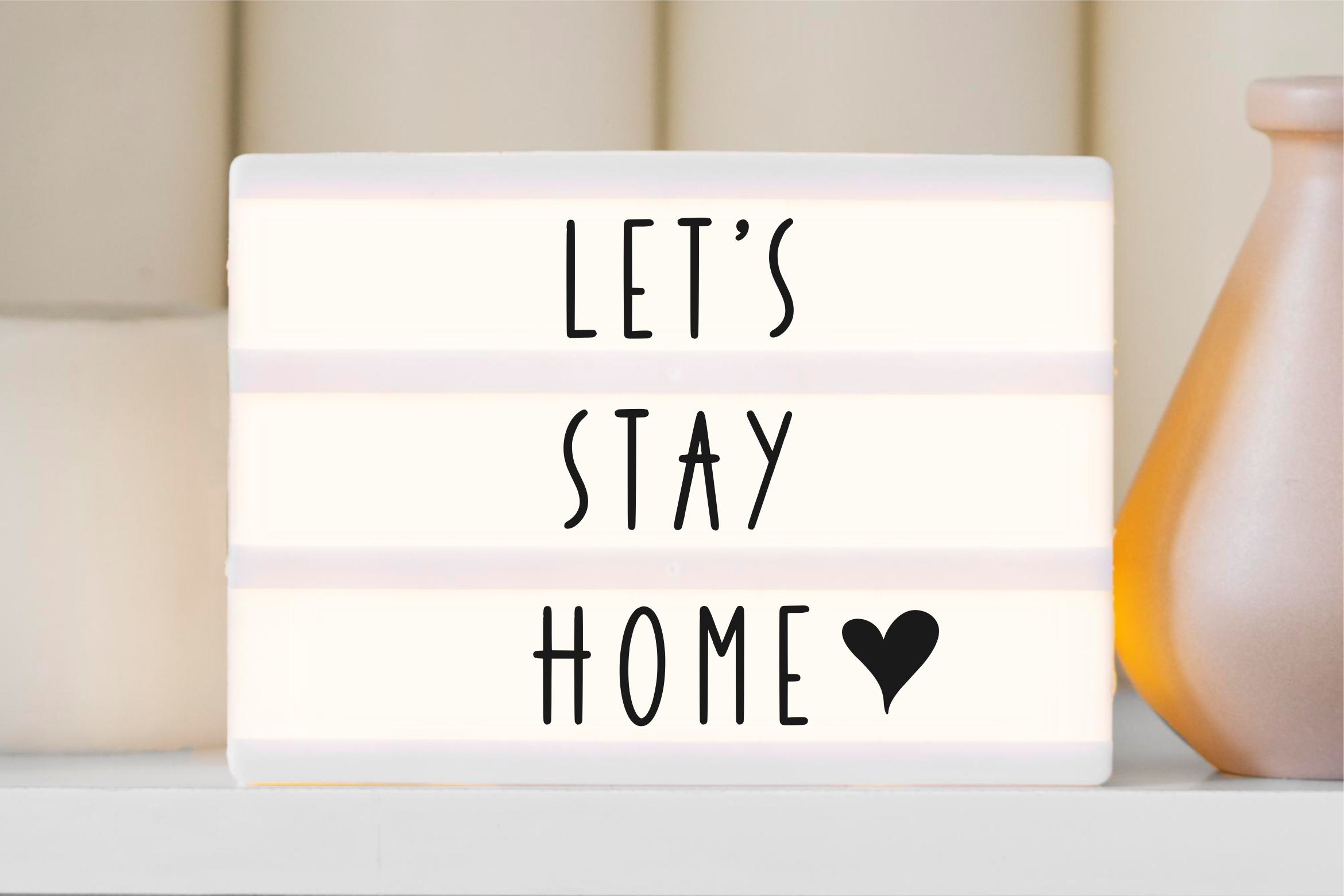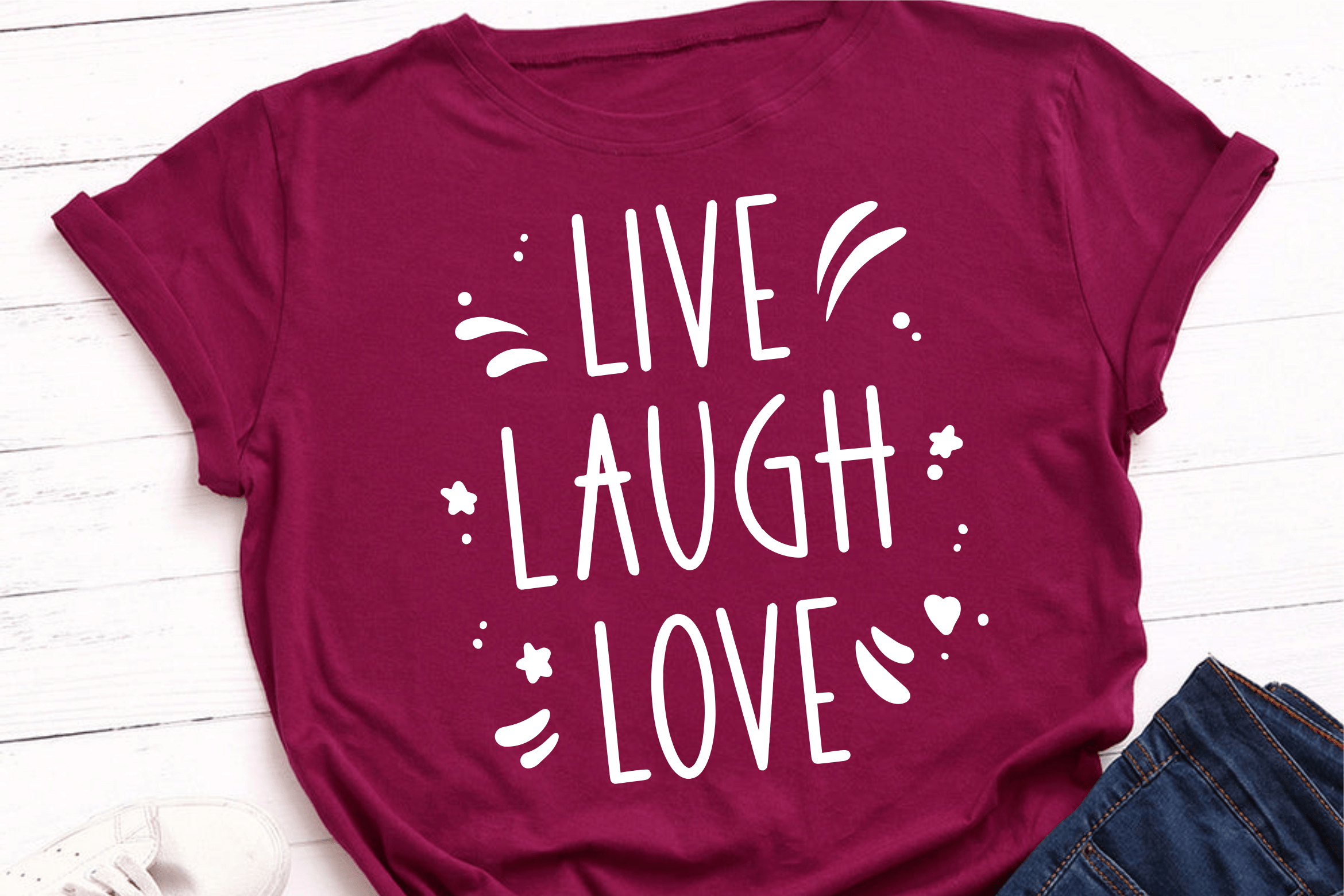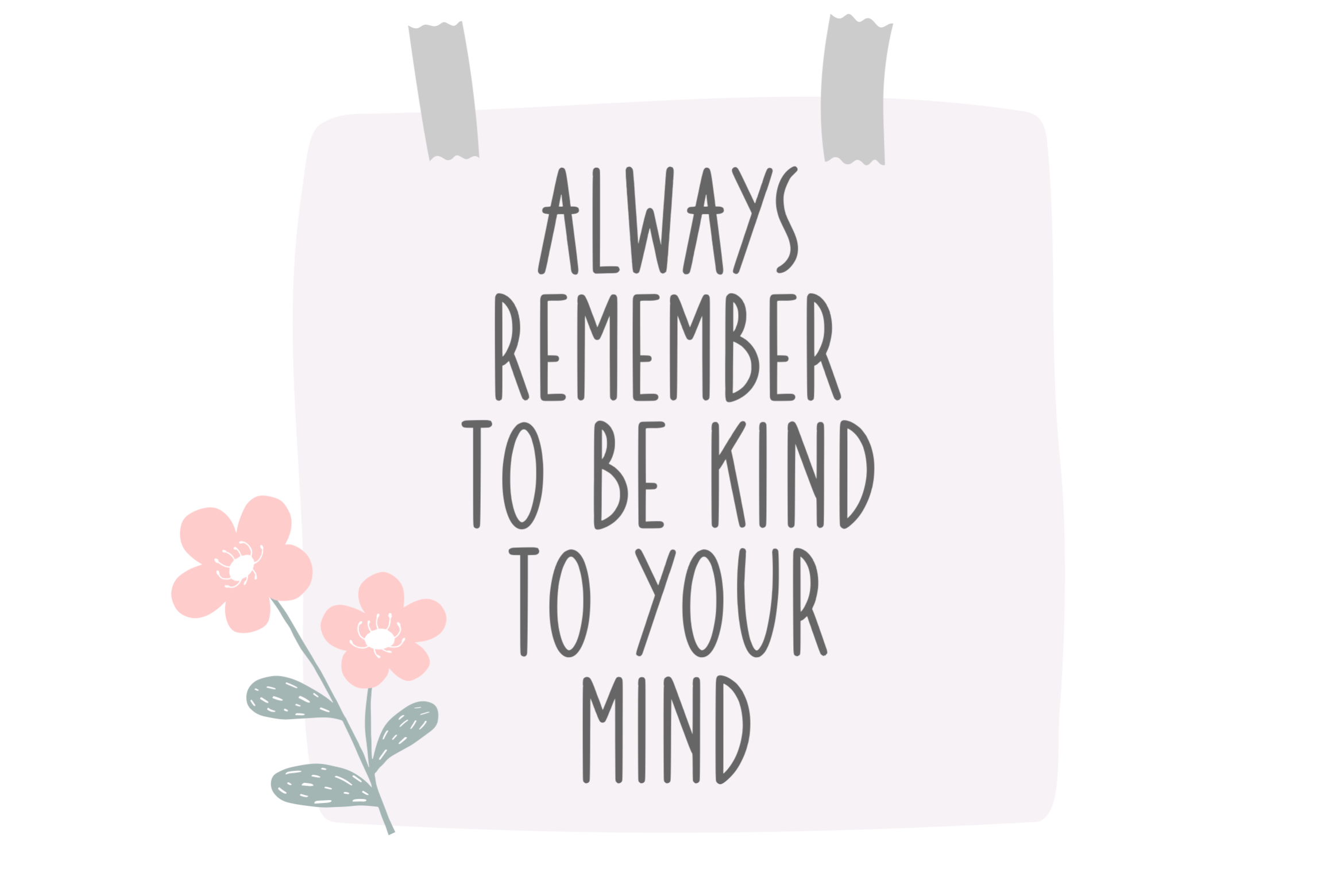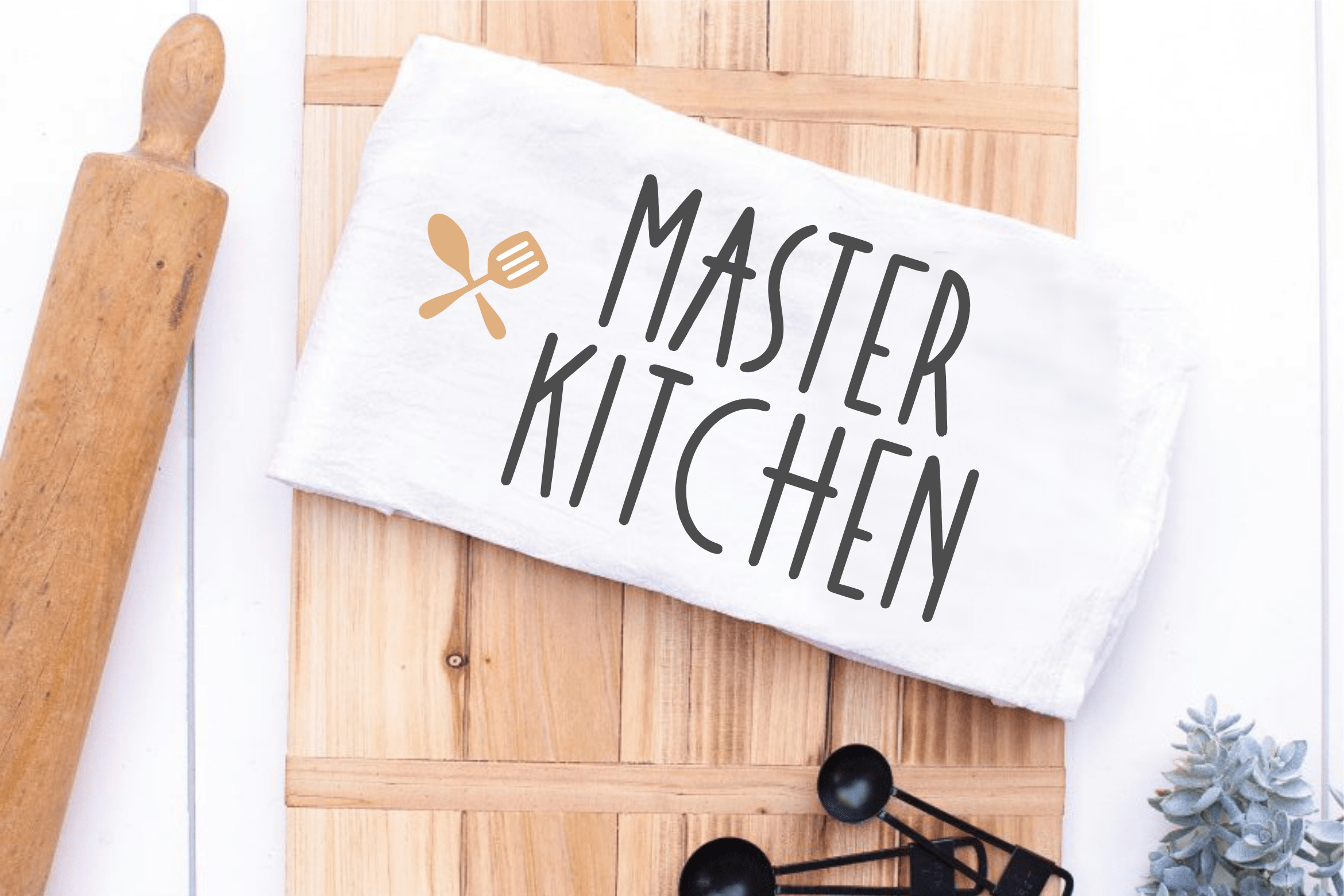
Mailhome Font
Mailhome Script Font
This is a tall, simple and adaptable handwritten font. No matter the topic, this font will be an incredible asset to your fonts’ library, as it has the potential to elevate any creation.